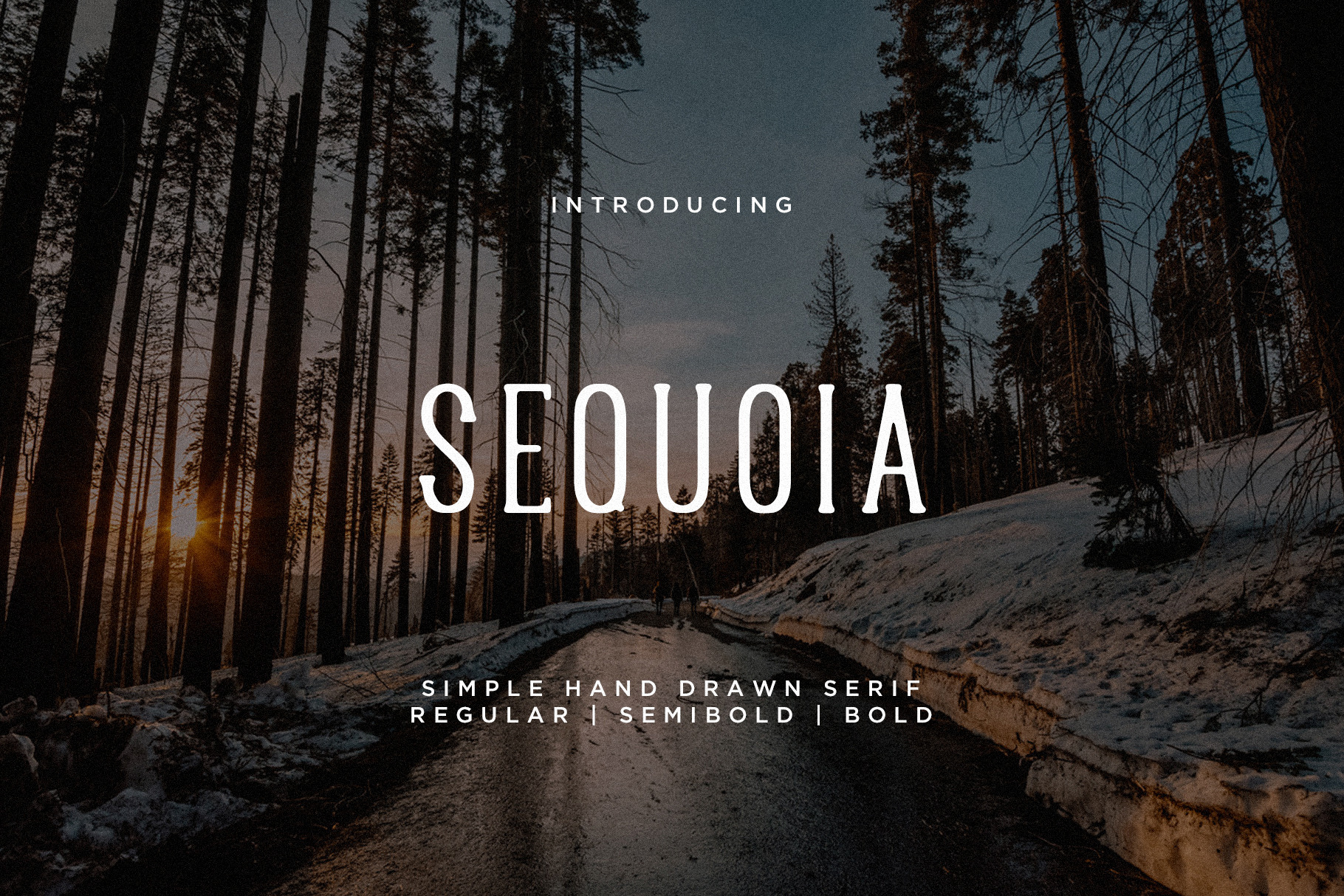
Sequoia Font + Extras
Sequoia is simple hand drawn serif font. Sequoia has smooth edges, a clean look, can be easily used for branding, logo design, posters, t-shirts, etc.
Sequoia Features:
- 3 Versions: Regular, Semibold, Bold
- Letters